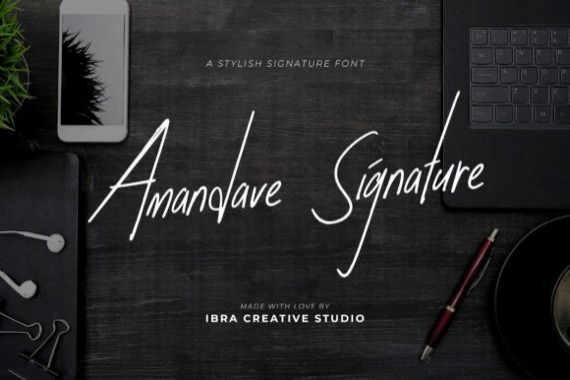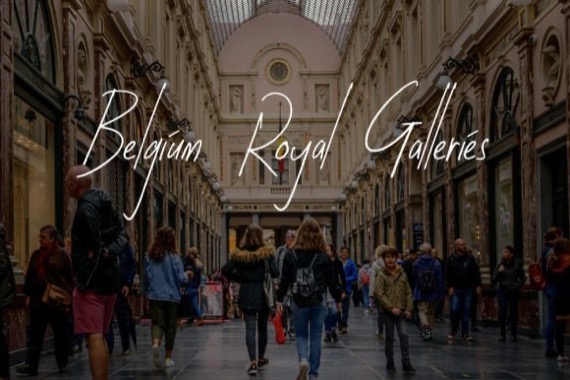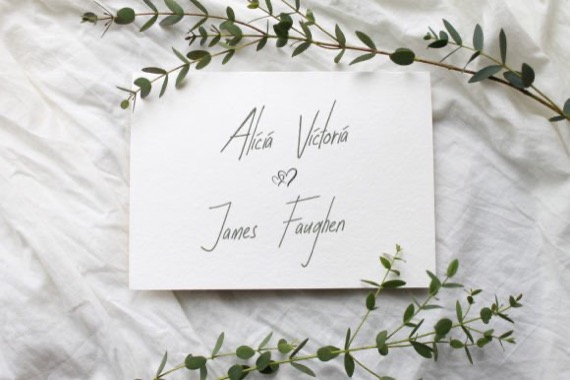
Amandave Signature is a stylish and sophisticated Handwritten Script Font that was created and shared by Ibracreative, it exudes elegance and charm. It adds a touch of class and individuality to any project, making it the perfect choice for branding, invitations, logos, and other creative endeavors that require a distinctive and luxurious signature-style font.
Amandave Signature Handwritten Font